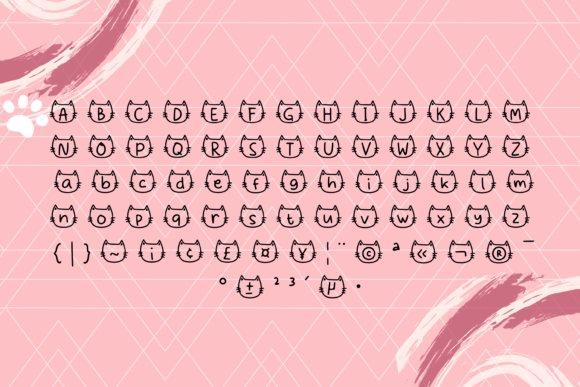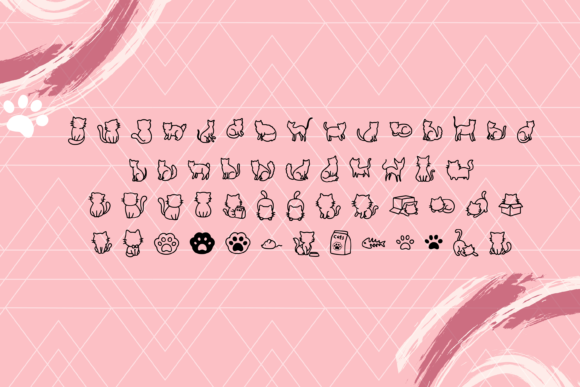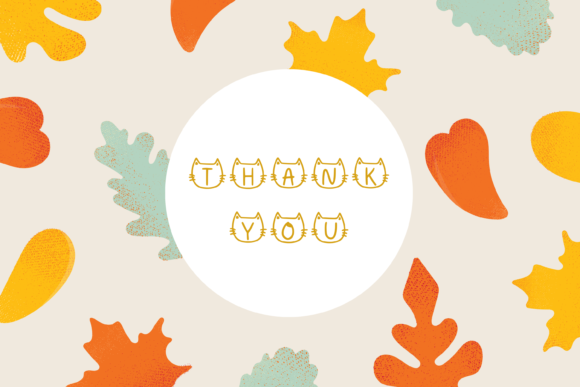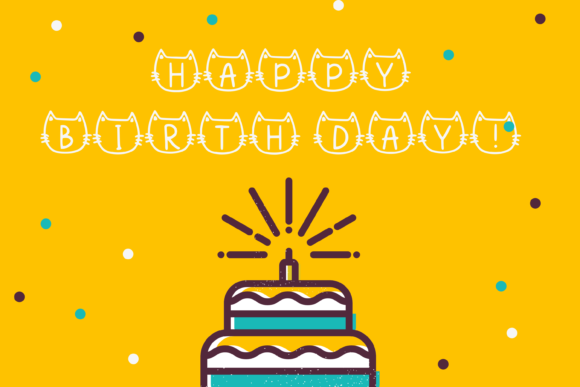
Introduction to Meows Nepil Font
Have you ever been working on a creative project, pouring your heart and soul into it, only to feel like something is missing? That’s when the perfect design resource can make all the difference. For designers, finding the right font can be a game-changer, and that’s exactly what the Meows Nepil Font offers.
This adorable and stylish duo font is not just any ordinary font. With its decorative and dingbats features, it adds an incredibly joyful touch to any project. Whether you’re working on a letterhead, title, stationery, or label, Meows Nepil Font is the perfect fit. Its transparent background and high-quality design make it a valuable addition to any designer’s toolkit, and the best part? It’s available for free download.
Key Features of Meows Nepil Font
- It comes in a high-quality, scalable format, allowing for easy customization and flexibility in various design applications.
- The font features a transparent background, making it easy to integrate with different backgrounds and design elements.
- Meows Nepil Font is a high-resolution, vector-based font, allowing for smooth scaling and editing without losing quality.
- This font is perfect for designers and artists looking for a unique and eye-catching design element for their creative projects.
Honest Review: Meows Nepil Font
What works well with Meows Nepil Font is its versatility in various design applications. ✨ The font’s elegant and playful style lends itself well to creating eye-catching headings, while its high-quality vector format makes it perfect for scalable designs. Additionally, the transparent background option provides endless possibilities for creative backgrounds and overlays.
Here are some of my favorite features of the Meows Nepil Font:
- High-quality vector format for scalable designs
- Transparent background option for creative backgrounds
- Elegant and playful style for headings
However, I did encounter some limitations while working with the font. ⚠️ The font’s character set is limited, and I found it difficult to customize certain characters to fit my design needs.
Tips for Getting the Most Out of Meows Nepil Font
To get the most out of Meows Nepil Font, use it in combination with other design resources, such as images and graphics. Experiment with different font sizes, colors, and styles to create a unique look and feel.
Meows Nepil Font is commonly used in creative projects such as:
- Typography projects